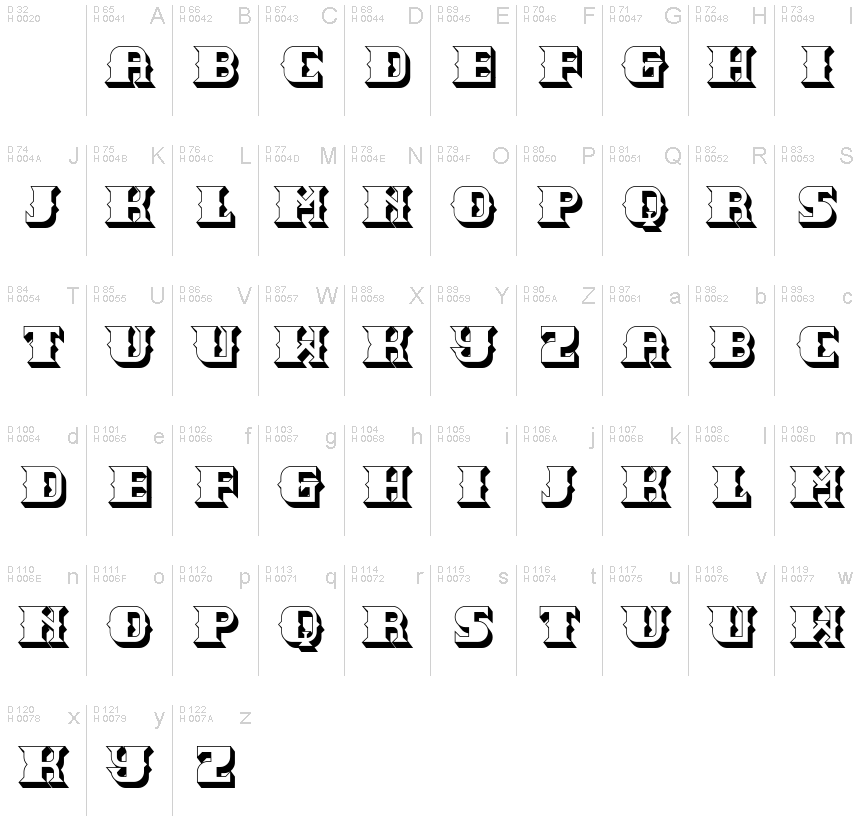
Combat Flat Regular
Designed by Vladimir Nikolic, Combat Flat is a bold and expanded display font that commands attention with its striking retro style. This unique typeface incorporates sharp edges and geometric shapes, making it perfect for creating impactful, eye-catching designs. The robust, expanded nature of Combat Flat conveys strength and dynamism, suitable for headlines, posters, logos, and branding where a powerful visual presence is key.
Its distinctive retro aesthetic evokes a sense of nostalgia while remaining fresh and modern in its execution. Ideal for projects that require a strong typographic statement, Combat Flat stands out across various mediums. Whether you’re designing vintage-inspired graphics or looking to add an edgy touch to your creative works, Combat Flat ensures your message won't go unnoticed. Embrace this dynamic font as the cornerstone of your next bold design endeavor.